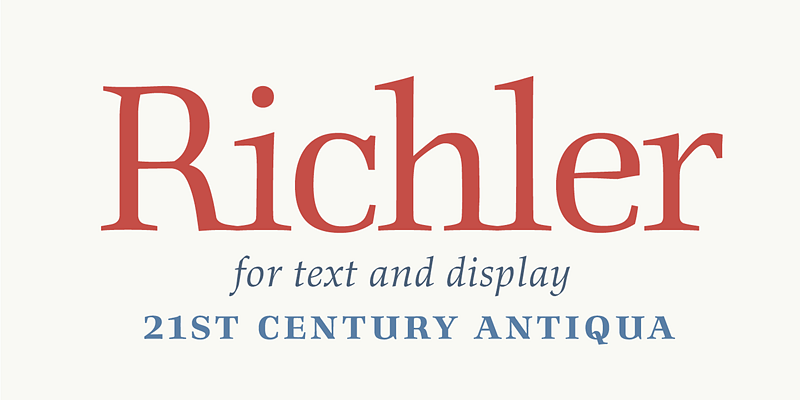
Richler Pro PE Font Free Download is an elegant and contemporary serif typeface that combines classic design with modern versatility. With its refined letterforms, balanced proportions, and strong readability, this font is perfect for editorial work, branding, luxury packaging, and any project that requires a professional and sophisticated aesthetic.
Richler Pro PE works beautifully in both large display settings and smaller body text, providing flexibility for all types of design projects. It integrates seamlessly with design tools like Adobe Illustrator, Photoshop, Figma, and InDesign, making it a perfect fit for both print and digital media.